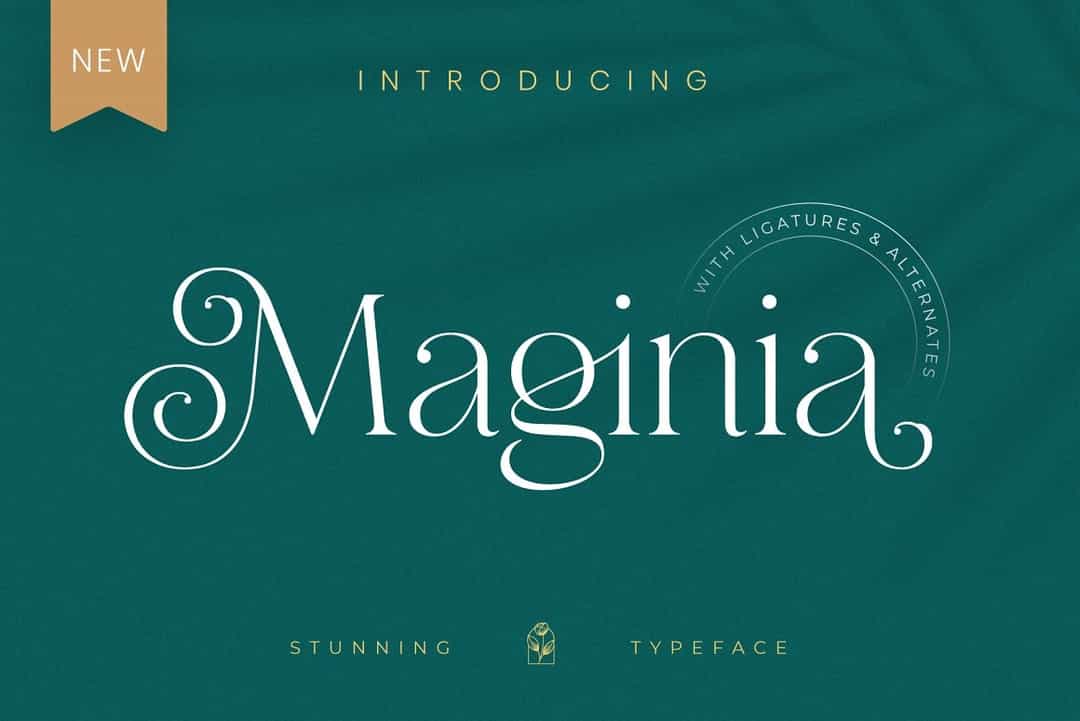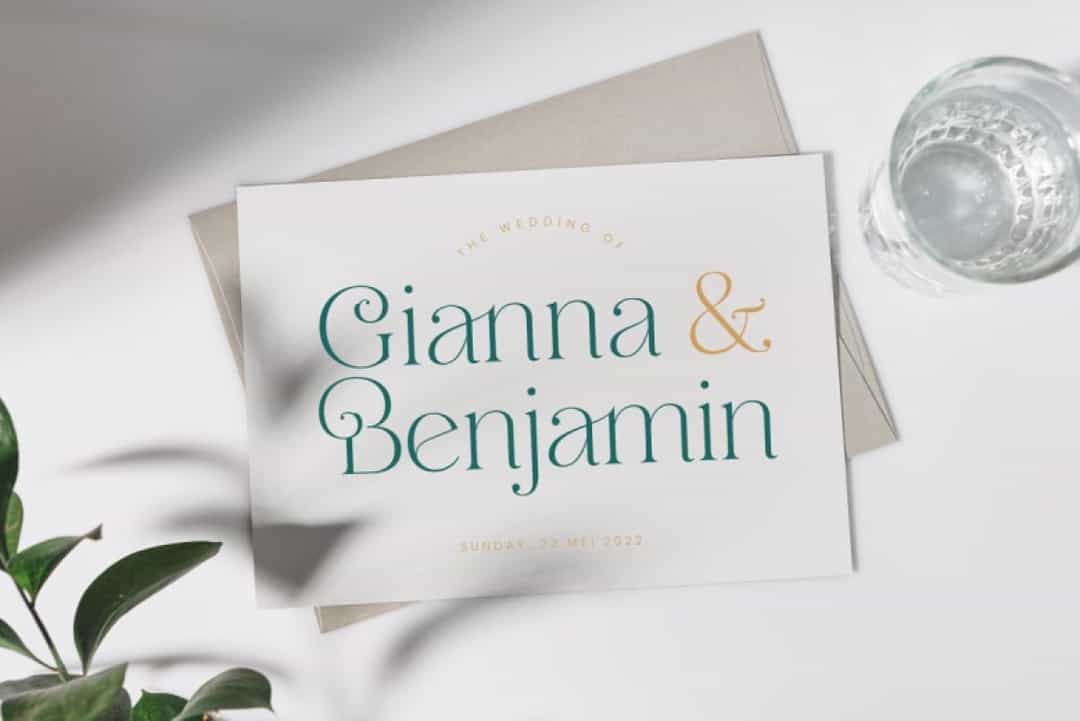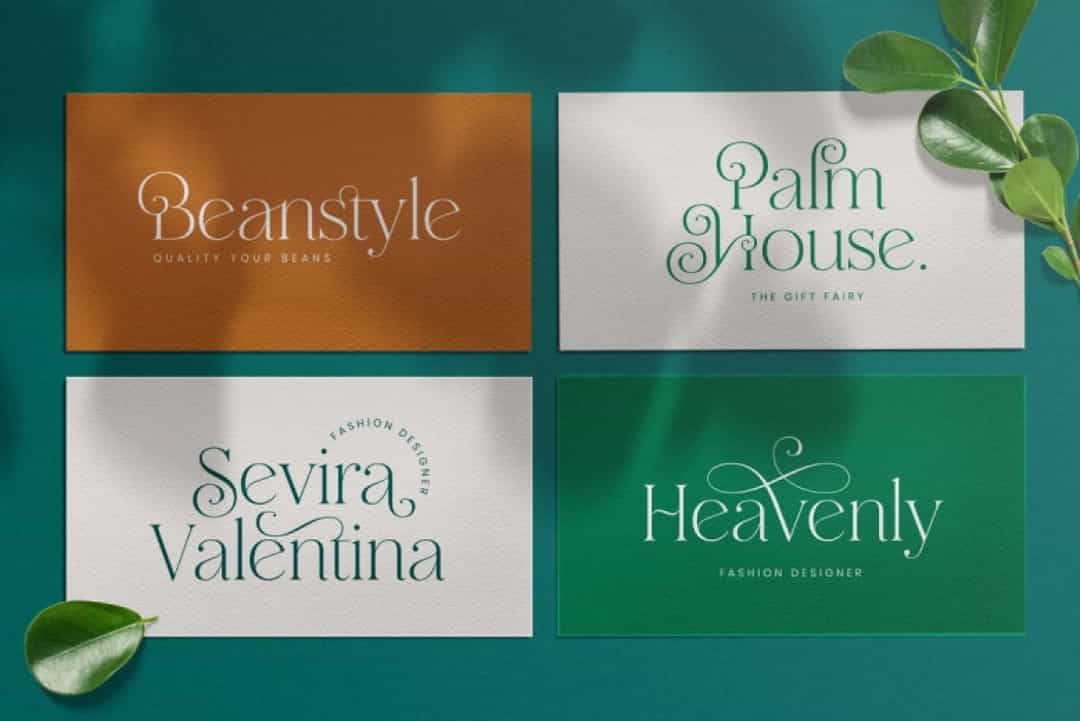
Discover Maginia Font, part of the Serif collection—a versatile and unique font perfect for adding a personal touch to your projects. Download it for free and enjoy crafting designs with style, from invitations to social media posts. This font is available exclusively for personal use, giving you the freedom to create without limits. Unlock your creativity with Maginia Font today!
Maginia Font can add magic and distinction to your project! Offering multiple alternatives and ligatures, Maginia makes itself suitable for formal designs such as invitations labels magazines logos books packaging wedding greeting cards fashion makeup stationery novels labels or any other purpose requiring elegant typography.